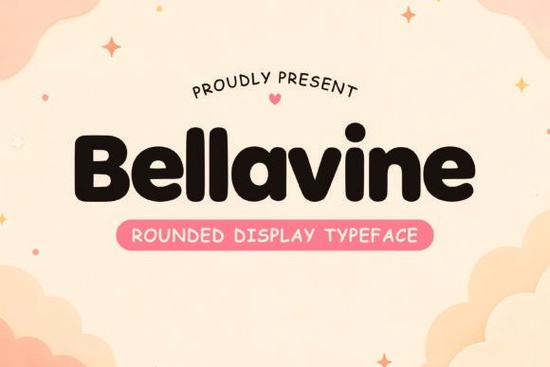
Finding the right typography for a brand that feels friendly but bold is often tricky. You want something that pops without shouting too loudly. The Bellavine Font fits this niche well. It offers a rounded display style that feels modern yet retro. Designers often struggle to balance personality with readability, especially when working on packaging or social media graphics. This typeface solves that by blending smooth curves with chunky letterforms.
What makes this typeface stand out?
The core appeal lies in its soft edges. Unlike harsher styles, like the industrial look found in our breakdown of construction-themed typefaces, this option softens the visual impact. When users see rounded letters, they often perceive the brand as more approachable. This is crucial for businesses like cozy cafés or children's product lines where trust and warmth matter. The bold personality ensures it still grabs attention on a crowded shelf or feed.
While Rivet Construction might suit a hardware store, it feels too rigid for a bakery. You can explore more about those industrial options in our article on sturdy display fonts. In contrast, the modern retro feel here brings nostalgia without looking outdated. It works well for logos that need to feel established yet fresh.
Where does this font work best?
Practical application is key when choosing a new typeface. This style shines in branding, packaging, and apparel. Because the letterforms are thick, they remain legible even at smaller sizes on stickers or labels. If you are designing for kids, readability is paramount. Parents need to read instructions quickly, and clear, rounded text helps reduce eye strain.
Sometimes you need something grittier. For example, if you are designing a workshop sign, a Dusty Stencil style might fit better. We discussed the nuances of those textured looks in our guide to stencil typography. However, for eye-catching headlines on digital content, smooth curves often perform better on screens. They render cleanly across different devices without losing their shape.
How does it compare to other playful options?
There are many playful fonts available, but not all carry the same weight. Some lean too whimsical, while others are too simple. If you need something more magical, you might look at Unicorn Horn. For holiday-specific projects, Santa Sugar offers a seasonal vibe. You can see more examples of these styles on our whimsical font collection page or our holiday typography review.
What sets this specific option apart is its versatility. It isn't limited to a single theme like Christmas or fantasy. It sits comfortably in a general modern category. This makes it a safer investment for small businesses that plan to grow. You won't need to rebrand immediately if your product line expands beyond a single niche.
Is it readable for headlines?
Yes, readability is a strong point. Display fonts sometimes sacrifice clarity for style, but the spacing here is balanced. The chunky nature means it holds up well in bold headlines. When pairing it with body text, choose a simple sans-serif. This keeps the focus on the headline while ensuring the main content is easy to scan.
Quick Checklist for Using Rounded Display Fonts
- Check Contrast: Ensure the font color stands out against the background.
- Test Sizes: Verify readability on both large banners and small stickers.
- Pair Wisely: Combine with a neutral body font to avoid visual clutter.
- Consider Audience: Make sure the playful vibe matches your brand voice.